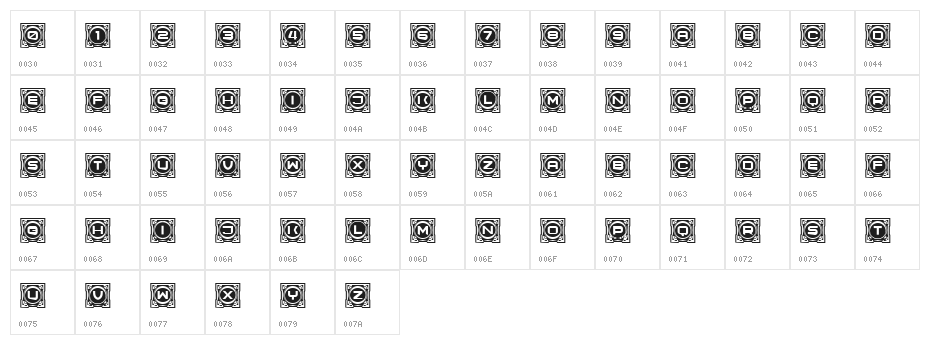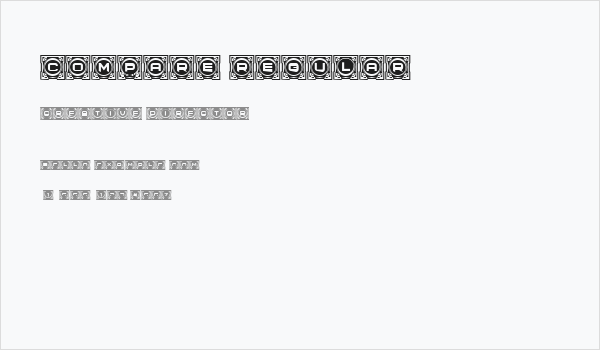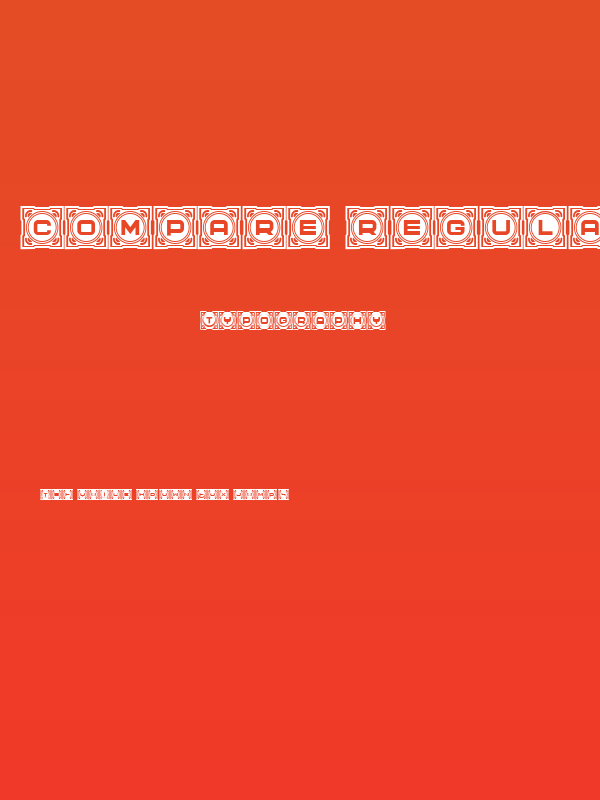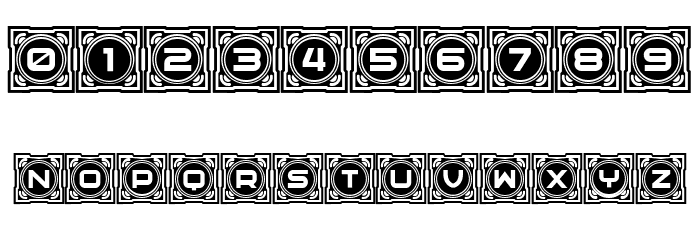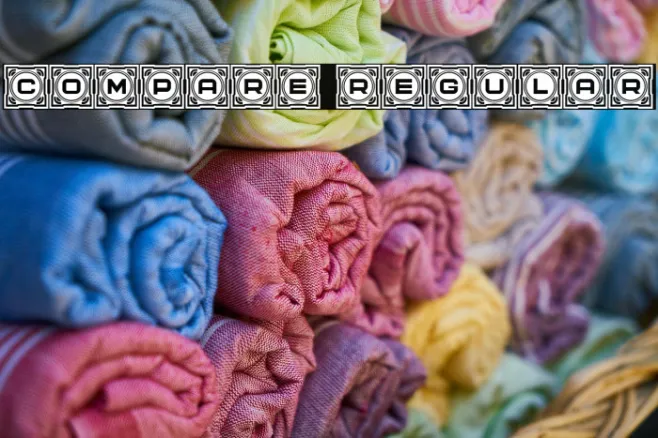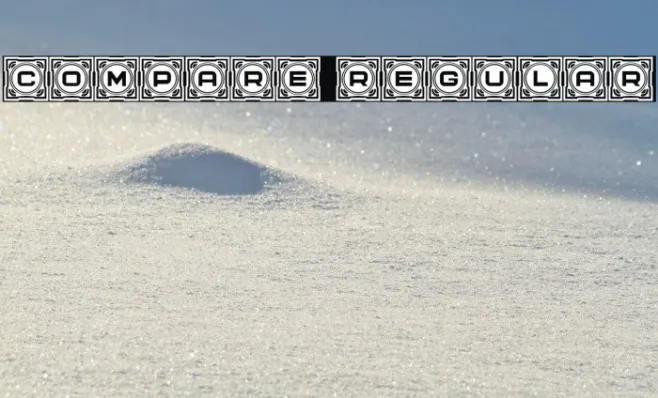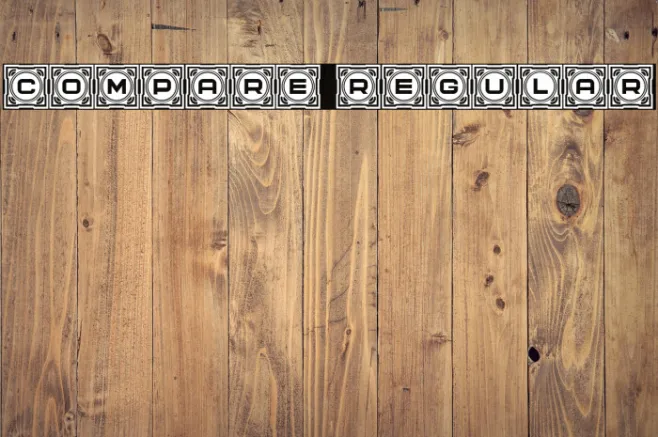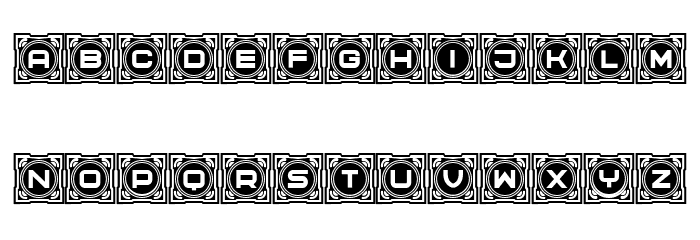
Compare Regular Font
Compare Regular Description
This font features a unique and decorative style, characterized by its bold, geometric shapes enclosed within intricate square borders. Each character is centered within a detailed frame that adds a sense of complexity and artistic flair. The letters and numbers are bold and rounded, providing a strong visual contrast against the ornate background. The overall design is reminiscent of vintage or retro styles, making it suitable for projects that require a touch of nostalgia or artistic expression. The font's distinct appearance makes it ideal for display purposes where visual impact is essential.